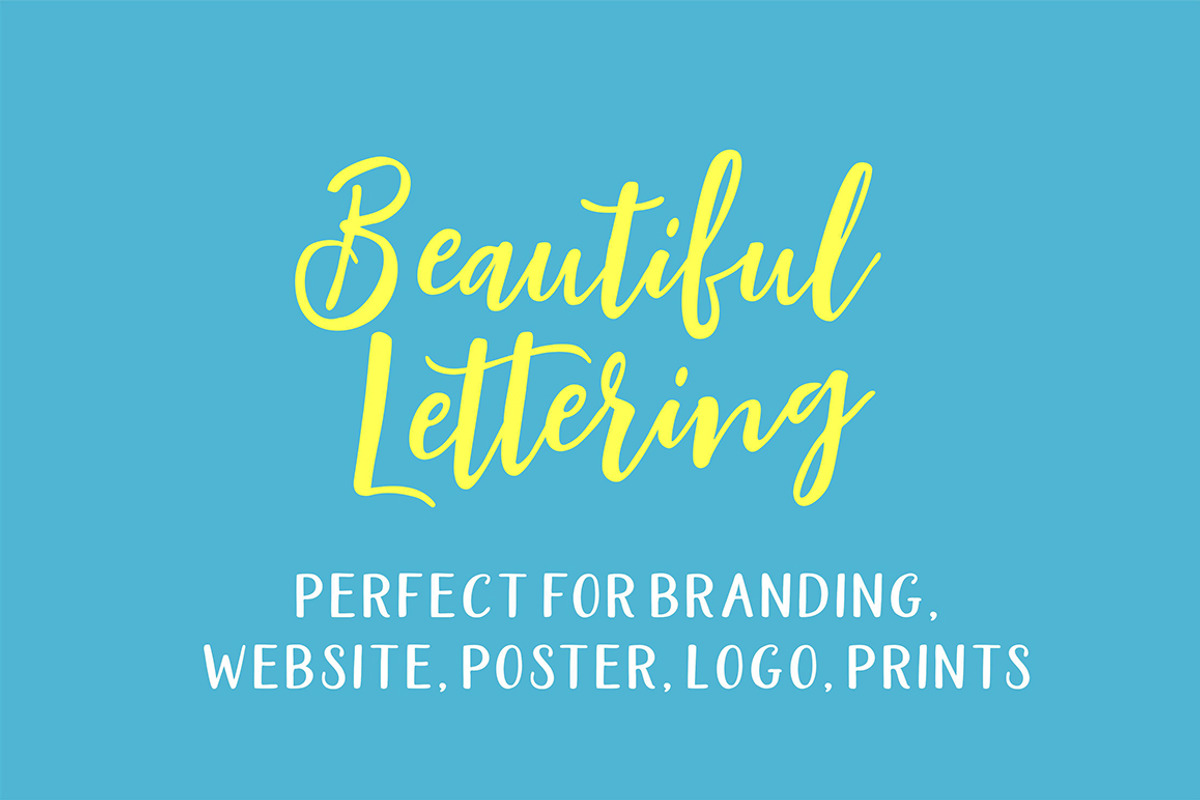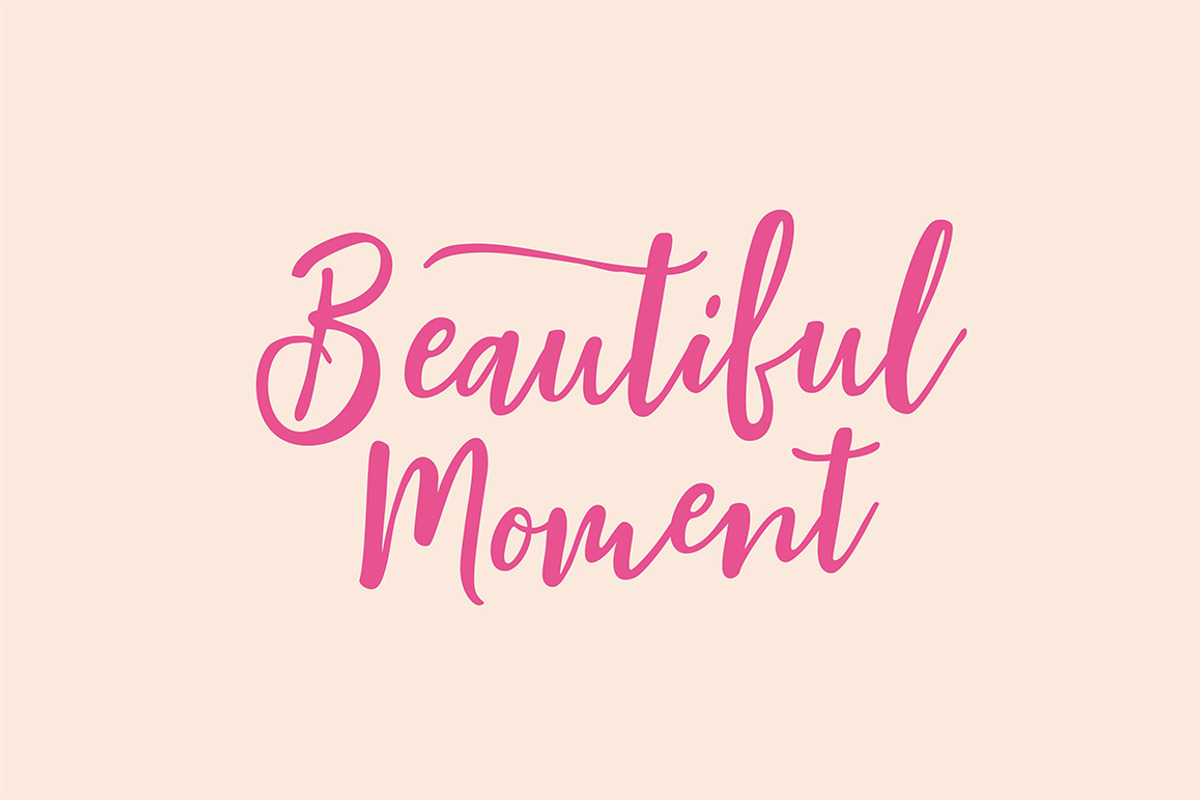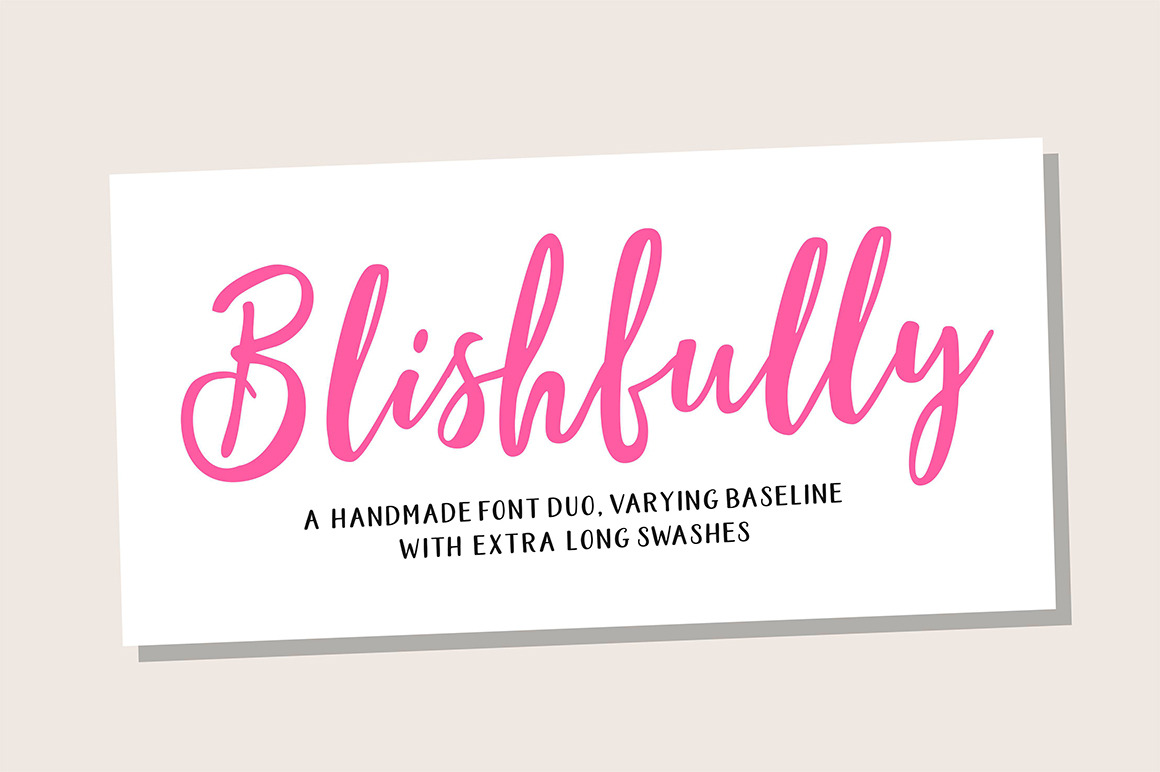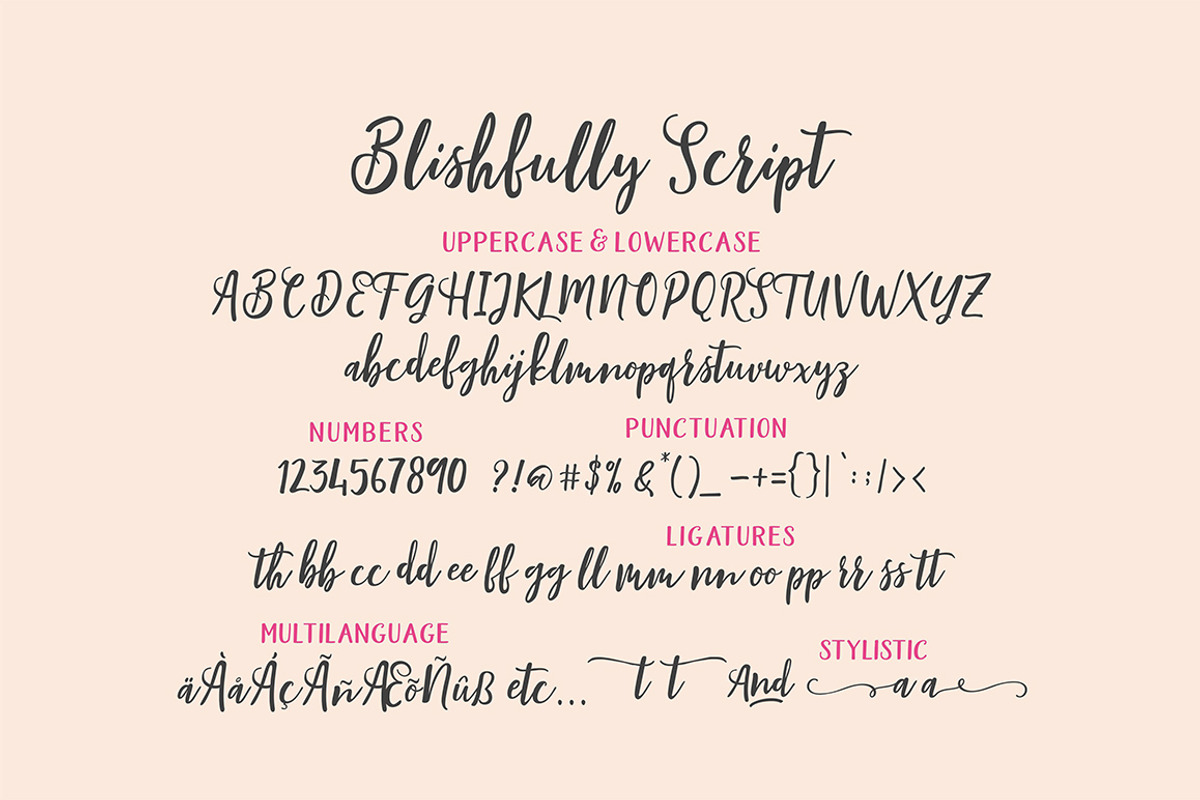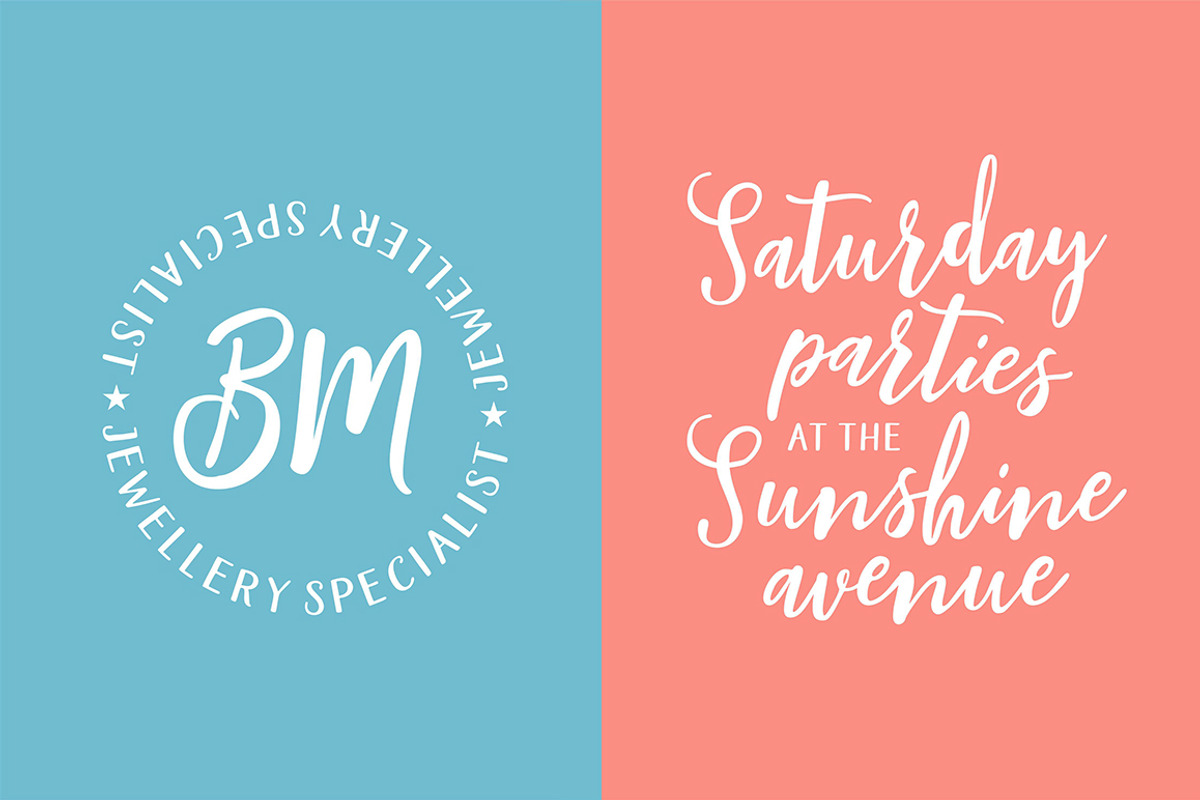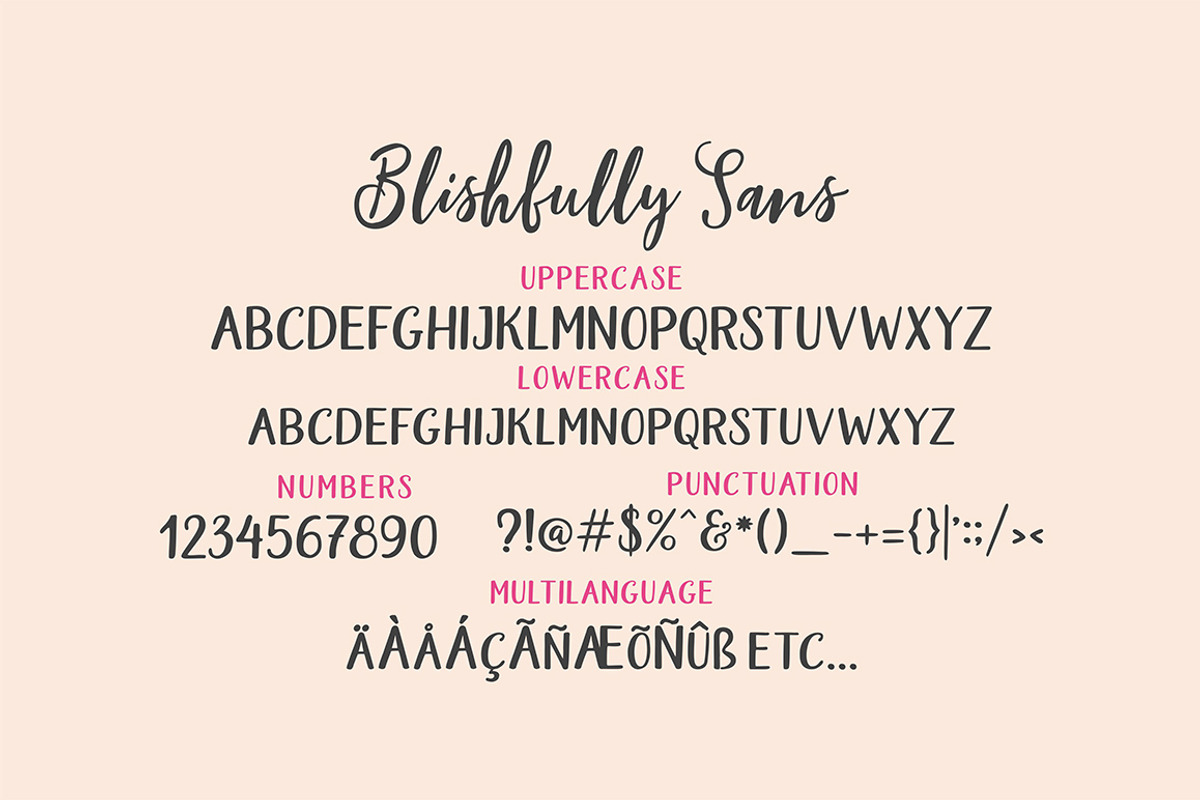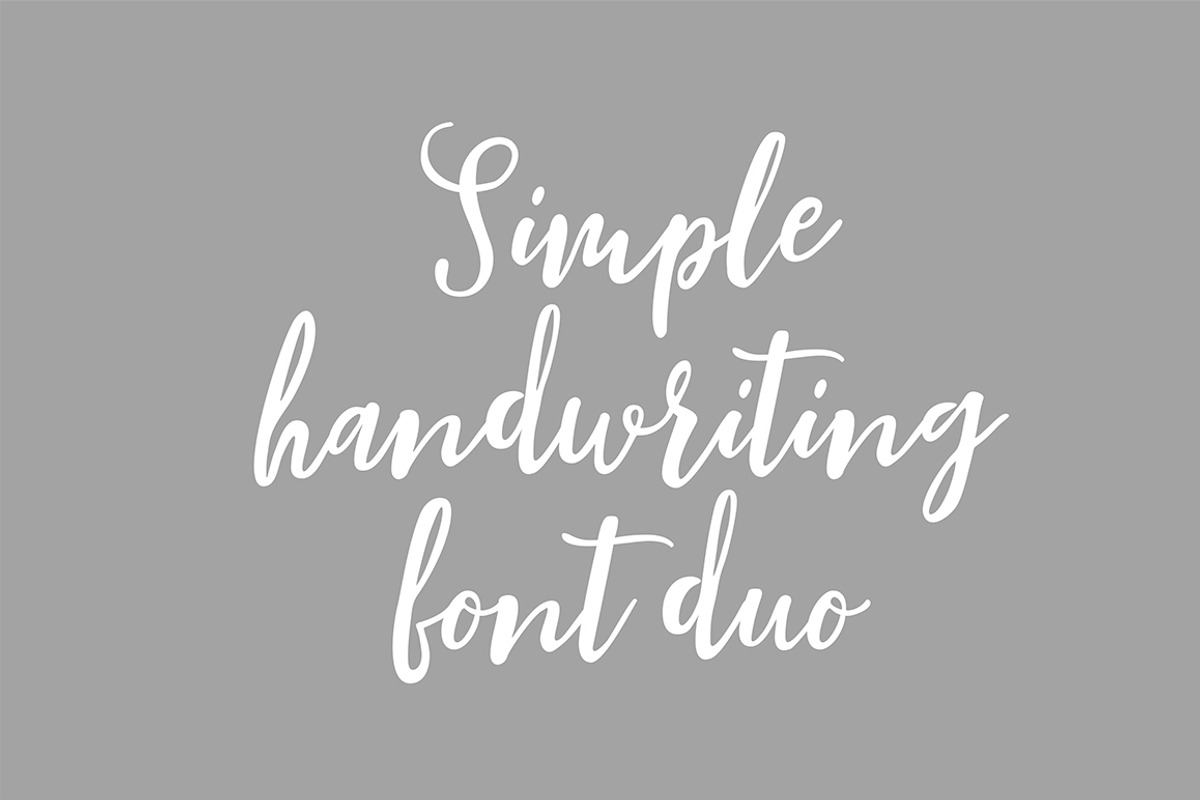
Blishfully Font Duo
Blishfully Script: A sweet handlettered font, casual and dynamic with a dancing baseline. Also available Blishfully Sans to help you mix and match it to fit your creative work in harmony. all to add an authentic touch to your designs. perfect for Branding, Logos, Greeting Cards, Wedding Stationery, Quotes etc.